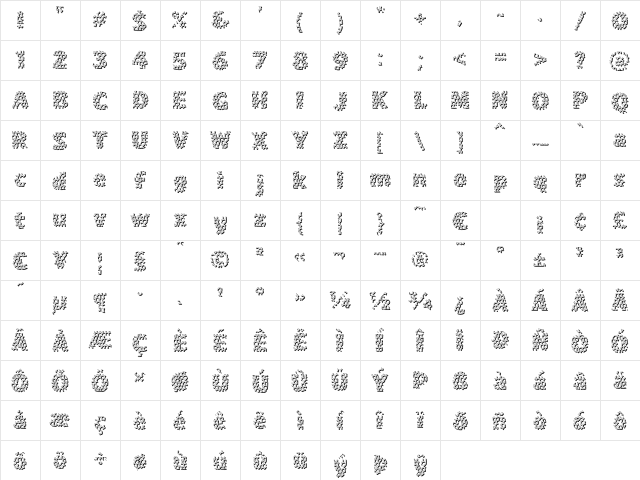
TownSquare 'Lattice' is a composed and adaptable typeface that performs quietly and consistently across a wide range of design contexts.
Pro Tip: Use TownSquare 'Lattice' in both headline and body roles to test its range before committing to a single application.